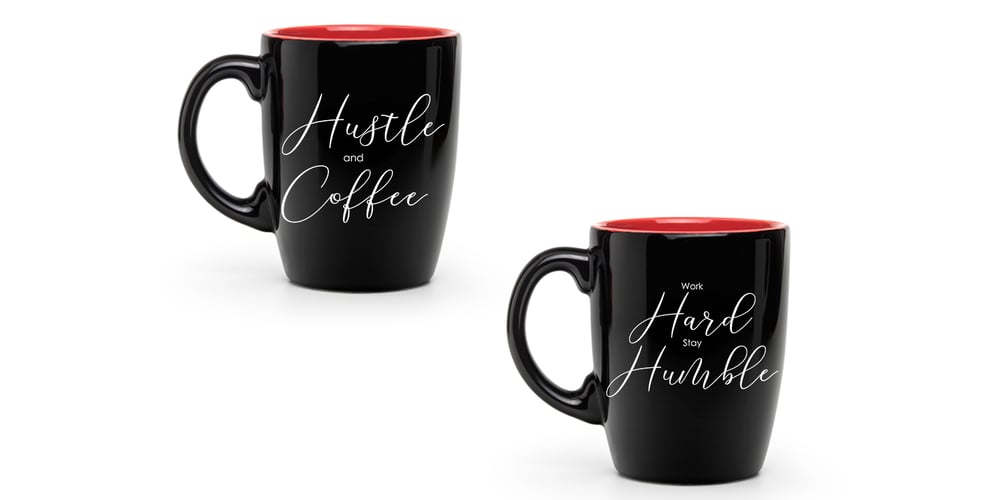
Kamelia Script
Kamelia Script font
Kamelia Script Font Family was designed by M Akmal and published by Mega Type. Kamelia Script contains 2 styles and family package options. Kamelia Script is modern calligraphy design, including Regular and Bold Script. This font is elegant and pretty with swashes. It can used for various purposes such as logos, product packaging, wedding invitations, branding, headlines, signage, labels, signature, book covers, posters, quotes and more. Kamelia Script features OpenType stylistic alternates, ligatures and International support for most Western Languages is included. To enable the OpenType Stylistic alternates, you need a program that supports OpenType features such as Adobe Illustrator CS, Adobe Indesign & CorelDraw X6-X7, Microsoft Word 2010 or later versions. How to access all alternative characters using Adobe Illustrator: https://www.youtube.com/watch?v=XzwjMkbB-wQ Kamelia Script is coded with PUA Unicode, which allows full access to all the extra characters without having special designing software. Mac users can use Font Book , and Windows users can use Character Map to view and copy any of the extra characters to paste into your favourite text editor/app. How to access all alternative characters, using Windows Character Map with Photoshop: https://www.youtube.com/watch?v=Go9vacoYmBw If you need help or have any questions, please let me know. I’m happy to help :Thanks & Happy Designing!